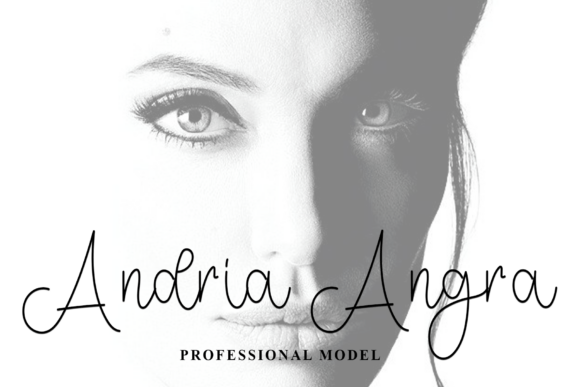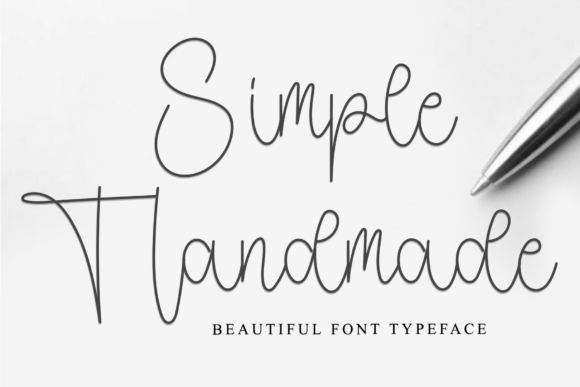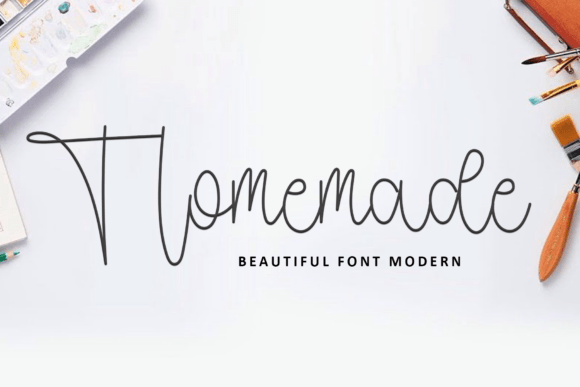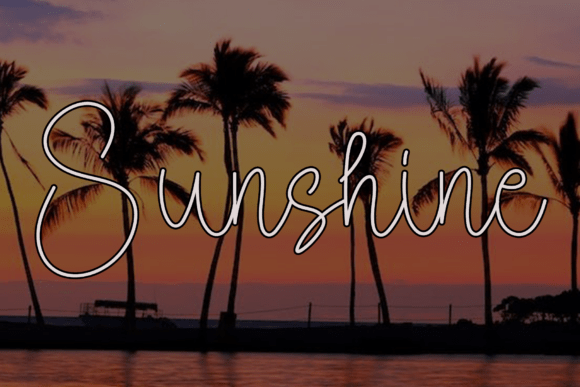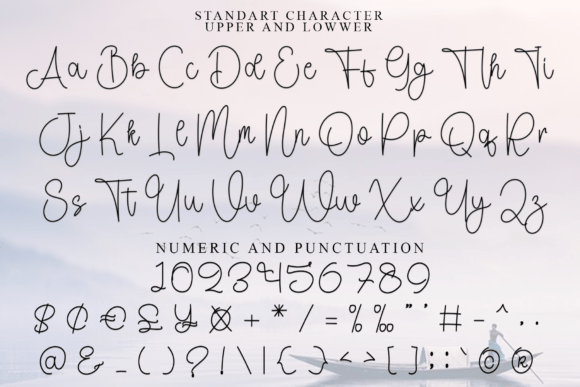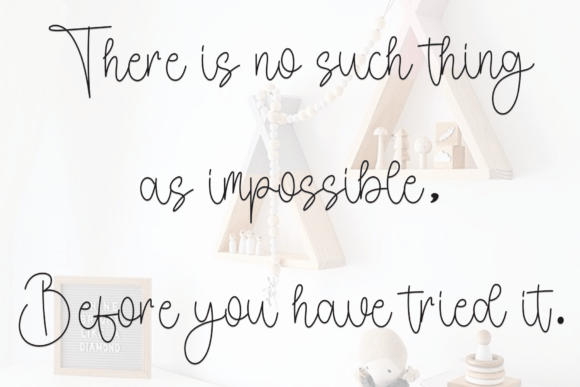
Hello Christmas Font: A Beautiful and Versatile Typeface for Your Creative Projects
Are you looking for a font that can add a touch of magic to your design projects, crafts, and creative works? Look no further than the Hello Christmas font. This beautiful and eye-catching typeface is designed with a soft, unique touch that is sure to make your designs stand out. In this article, we’ll take a closer look at the Hello Christmas font, its features, and how you can use it to enhance your creative projects.
A Unique and Special Font
The Hello Christmas font is a distinctive typeface that is designed to give your designs a special character. Its soft and unique touch makes it perfect for a wide range of creative projects, from holiday-themed designs to everyday crafts. The font’s distinctive strokes give it a special charm that is sure to appeal to many audiences across different artistic and creative fields.
Versatile and Meaningful
One of the best things about the Hello Christmas font is its versatility. It’s a font that can be used for a wide range of projects, from design and crafts to other creative works. Whether you’re creating holiday cards, gift tags, or social media graphics, this font is sure to make your designs look amazing. Its meaningful and unique design makes it perfect for projects that require a personal touch.
Various Characters and Compatibility
The Hello Christmas font is perfect for designers and crafters who want to add a touch of magic to their projects. Whether you’re a professional designer or a hobbyist, this font is sure to inspire your creativity. Its unique design makes it perfect for a wide range of projects, from holiday-themed designs to everyday crafts.
Use it for a Wide Range of Projects
The Hello Christmas font can be used for a wide range of projects, including:
- Holiday cards and gift tags
- Digital designs and print materials
- Crafts and DIY projects
- Web designs and blogs
Why Choose Hello Christmas Font?
There are many reasons why you should choose the Hello Christmas font for your creative projects. Here are a few:
- Unique and special design
- Versatile and meaningful
- Wide range of characters
- Perfect for designers and crafters
In conclusion, the Hello Christmas font is a beautiful and versatile typeface that is perfect for a wide range of creative projects. Its unique design, versatility, and compatibility make it a great choice for designers and crafters. Whether you’re creating holiday-themed designs or everyday crafts, this font is sure to make your designs look amazing. So why wait? Download the Hello Christmas font today and start creating amazing designs!